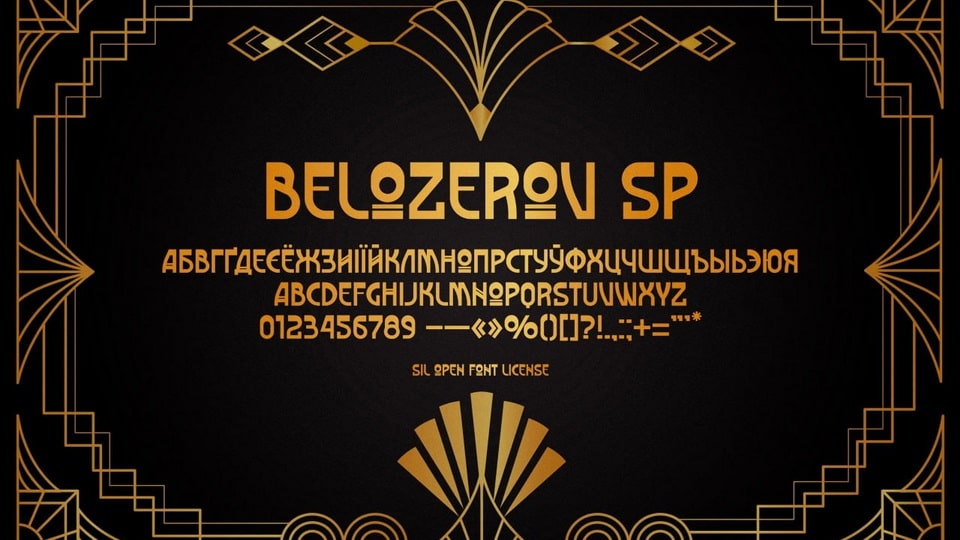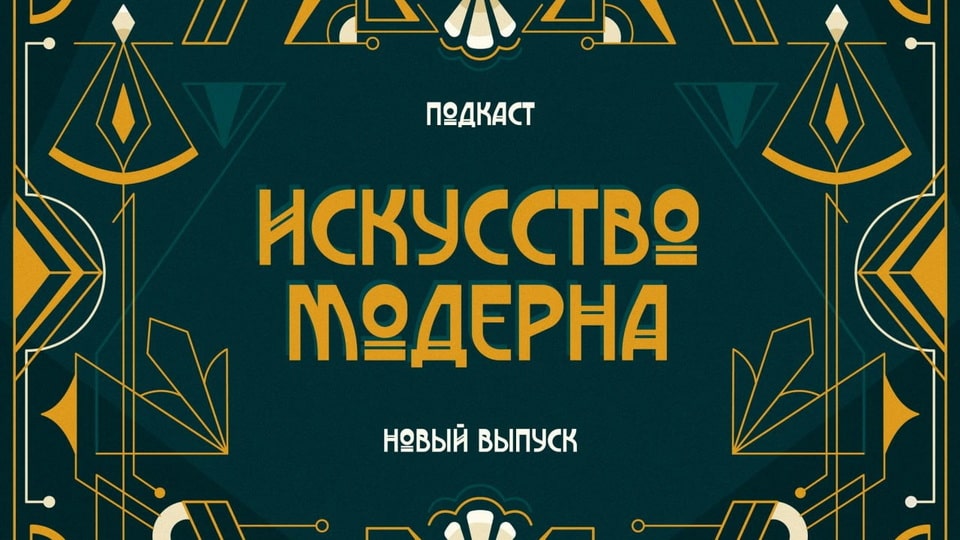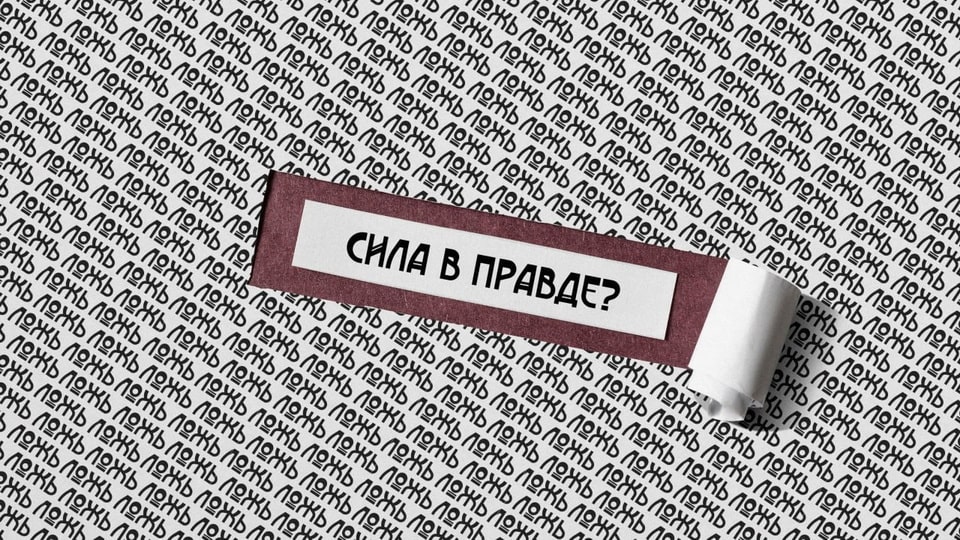
Belozerov SP is a decorative geometric sans serif designed by Sasha Pavljenko and distributed under the SIL Open Font License 1.1. Its letterforms have an upright, block-like structure with low stroke contrast, compact spacing, and Art Deco-influenced details such as stepped cuts, short horizontal bars, and simplified curves. The font has a bold, architectural rhythm that works best in large settings rather than long text. Its mood is retro, formal, and graphic, with a Soviet poster-like character. Belozerov SP suits posters, cultural titles, podcast covers, editorial headings, packaging, and other display contexts where Cyrillic styling is important.